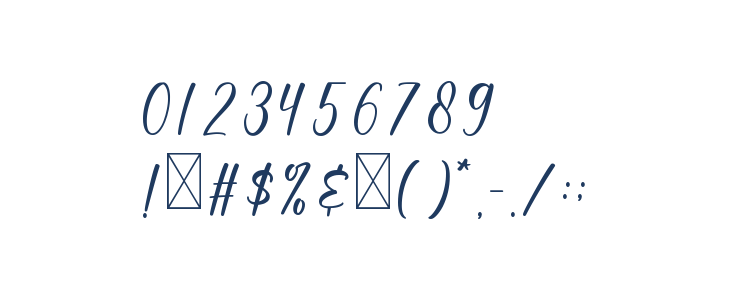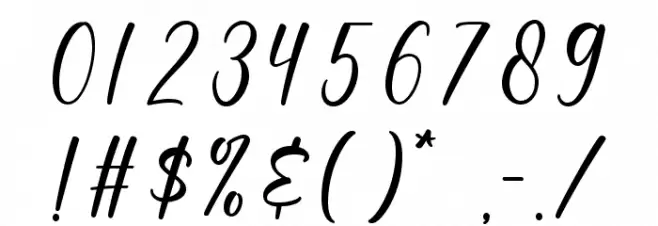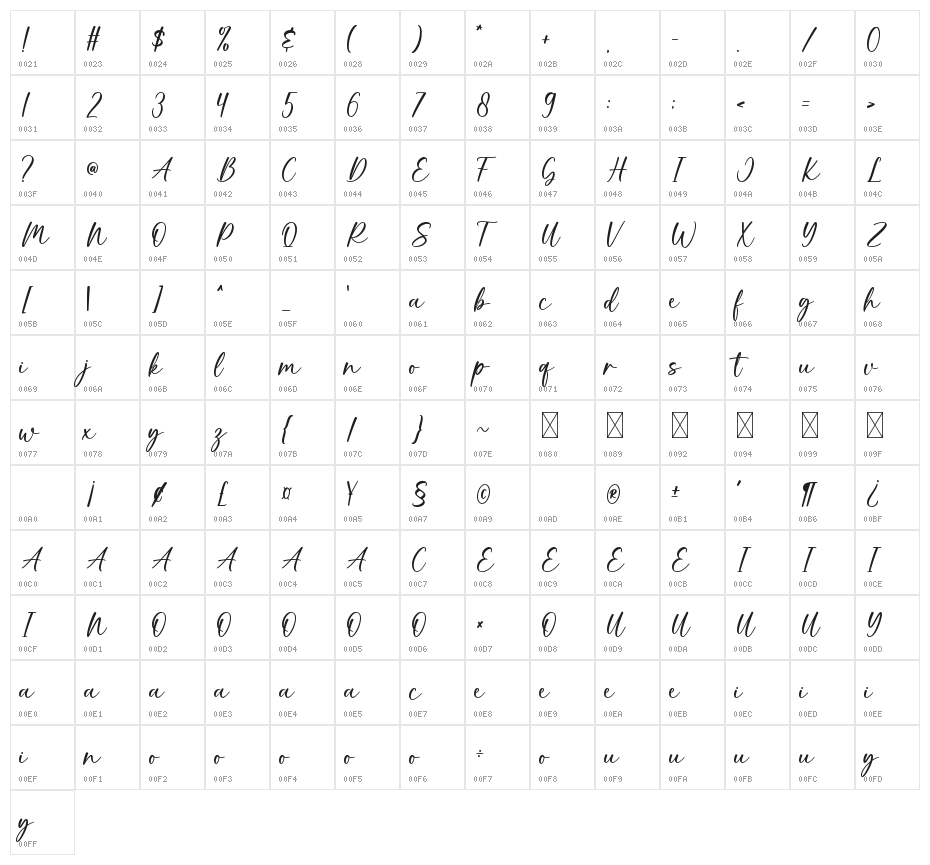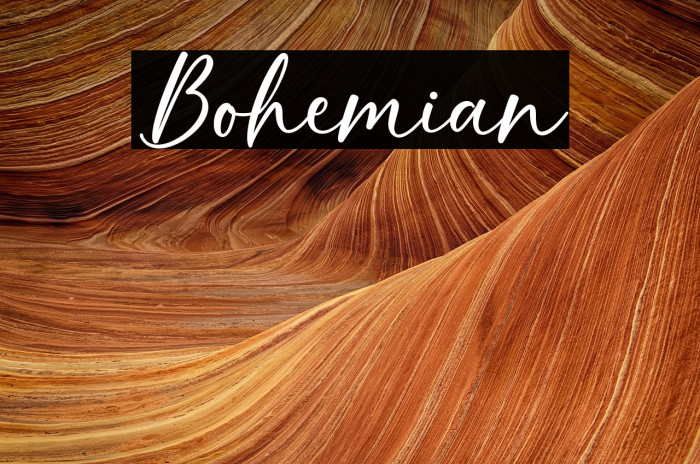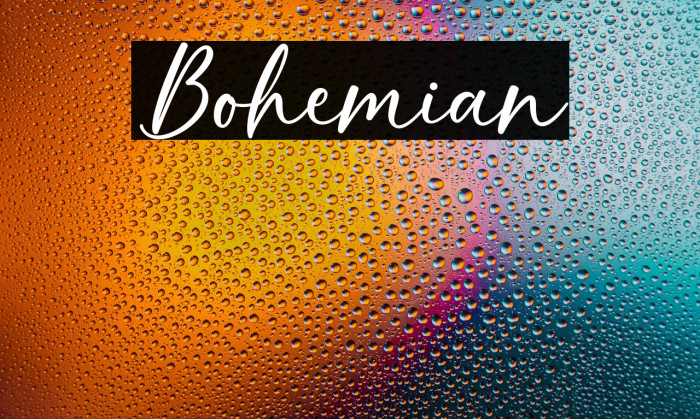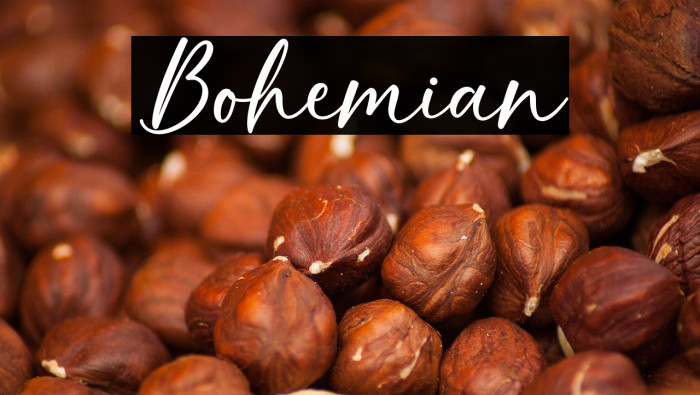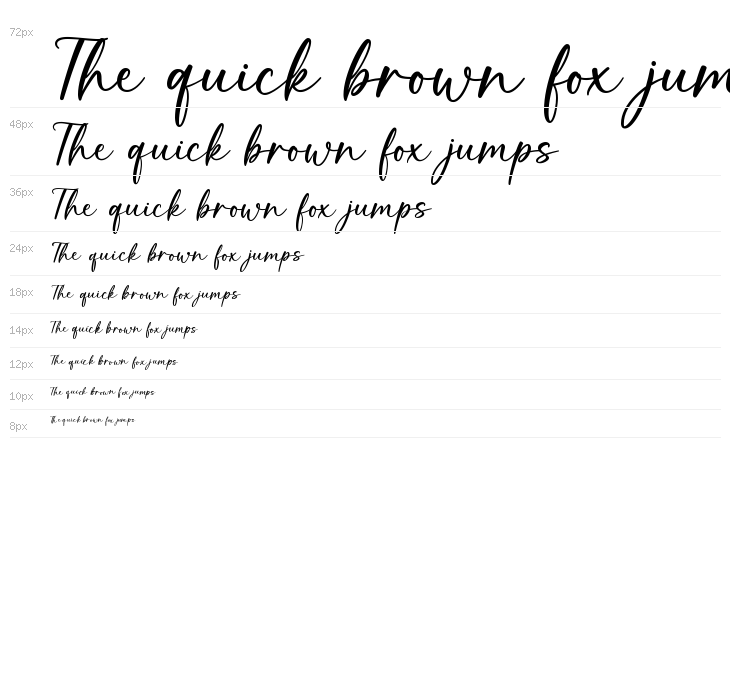
Bohemian Font
Bohemian Description
This font exudes a lively and artistic flair, characterized by its flowing, cursive style. The letters are elegantly connected, creating a sense of movement and fluidity. The uppercase letters stand tall with a slight slant, while the lowercase letters maintain a consistent rhythm, enhancing readability. The numerals and special characters are designed with the same graceful curves, ensuring a cohesive look across all text. This font is perfect for projects that require a touch of elegance and creativity, such as invitations, greeting cards, and artistic branding.
| Use Case | Logos, Headlines, Artistic text |
| Proposed Projects | Ideal for invitations, greeting cards, artistic branding, and creative projects. |